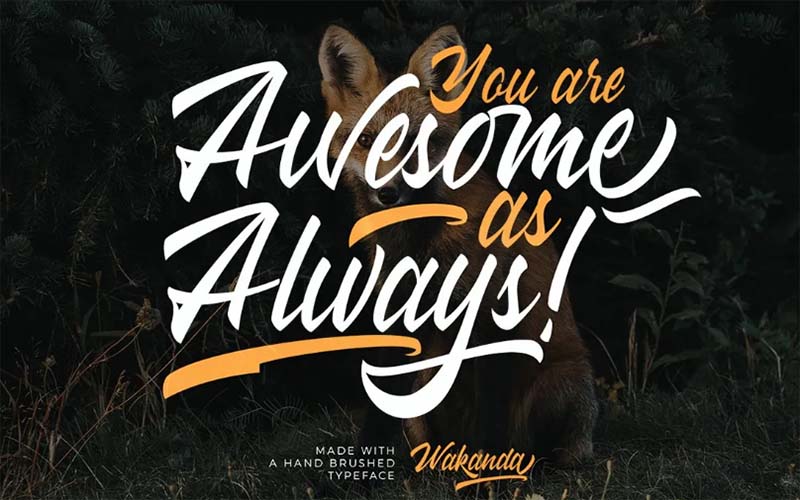
Wakanda Font is a script, handwritten typeface. This modern font has a popular texture, it is a great choice for you if you want to design an amazing invitation.
It is a purely handwritten typeface that was released under the banner of the famous font foundry font forestry. A great typeface to design amazing e-book covers.
Another great aspect of this typeface is that It has a combination of huge, flowing capital letters. Wakanda Font consists of four unique and stylish styles. This includes Wakanda Regular, Wakanda Bold, Wakanda SemiBold, and Wakanda Italic.
It supports 36 multiple languages that spread this font around all over the world. This typeface is a great match for the Black Panther handwritten typeface.
Wakanda Font